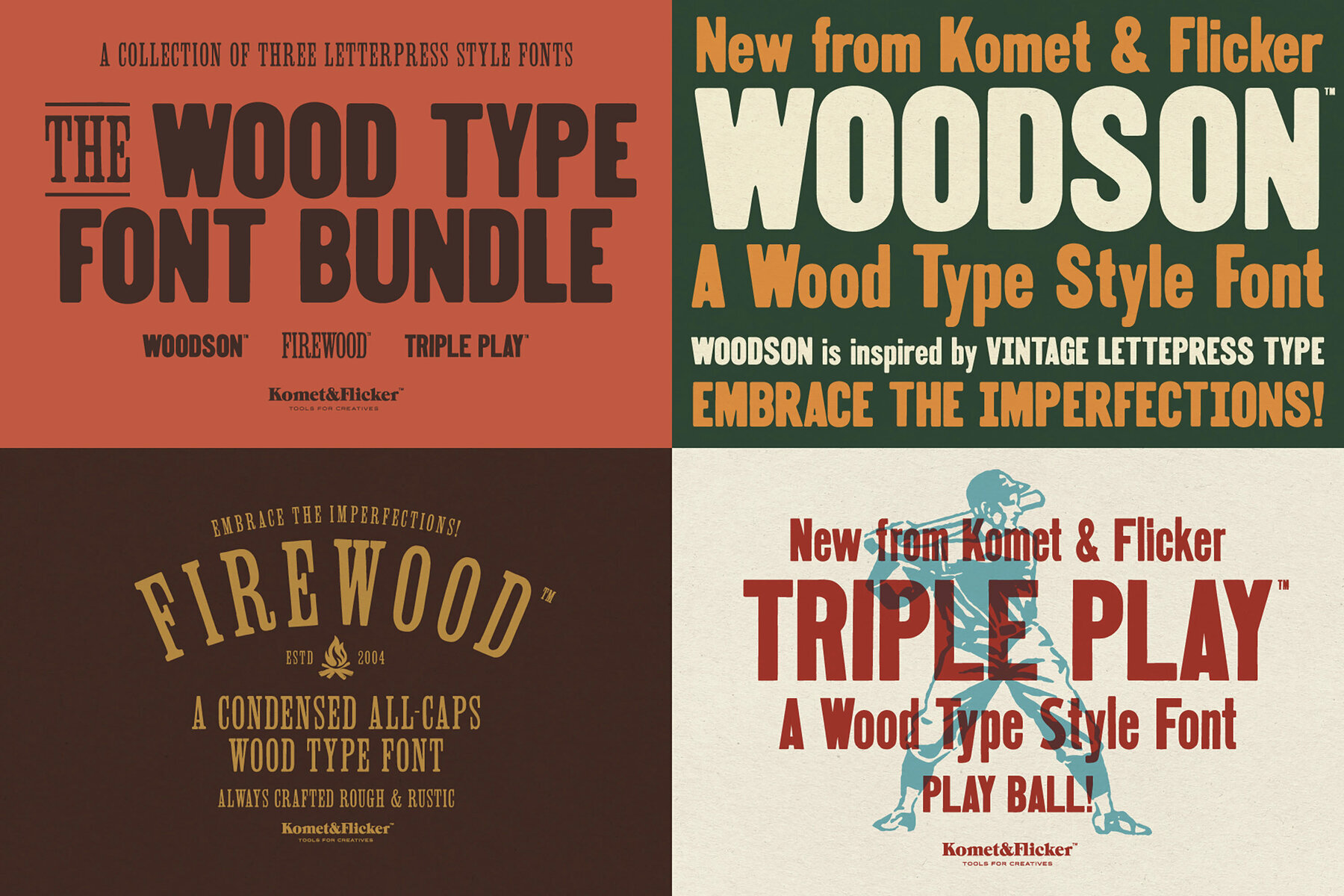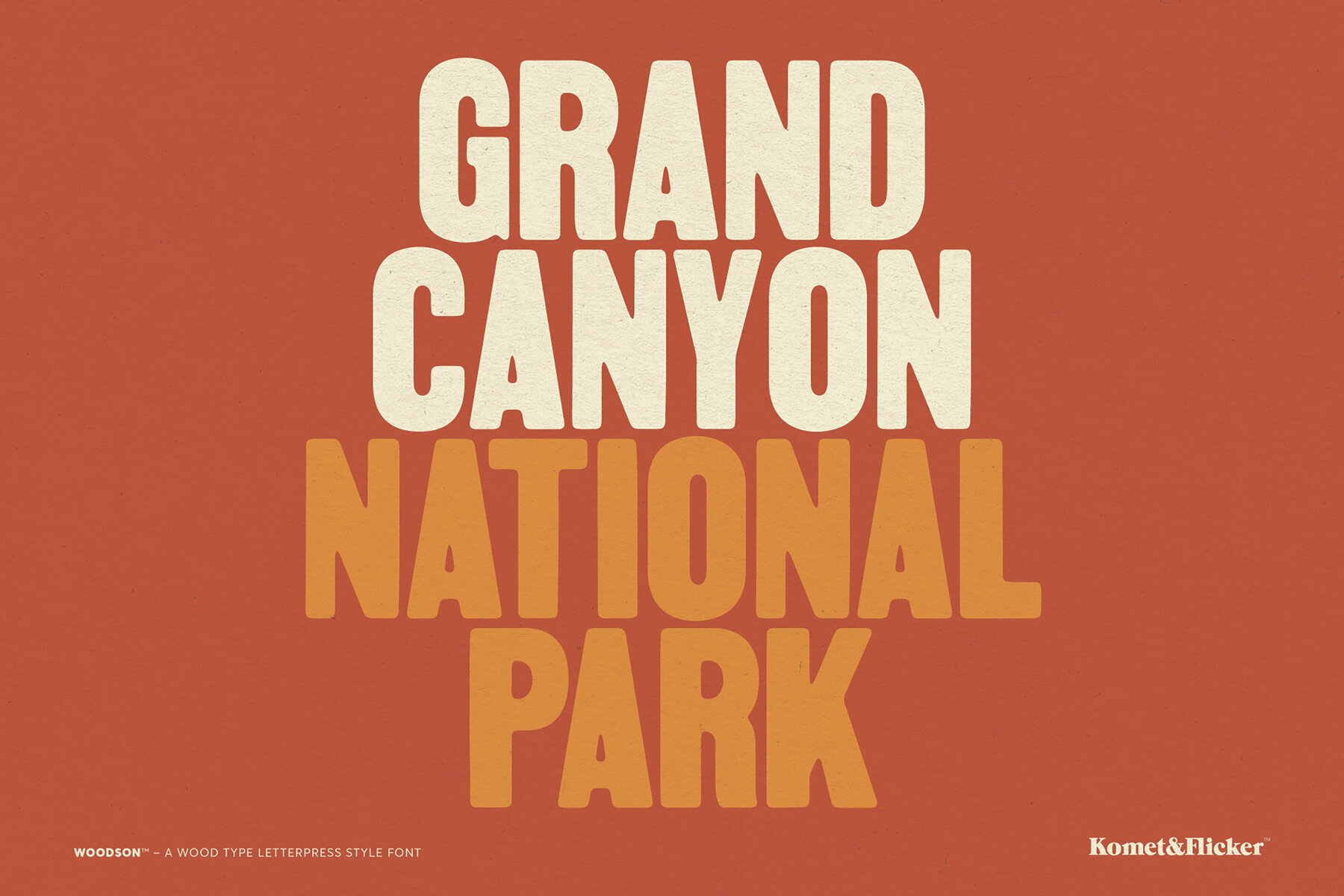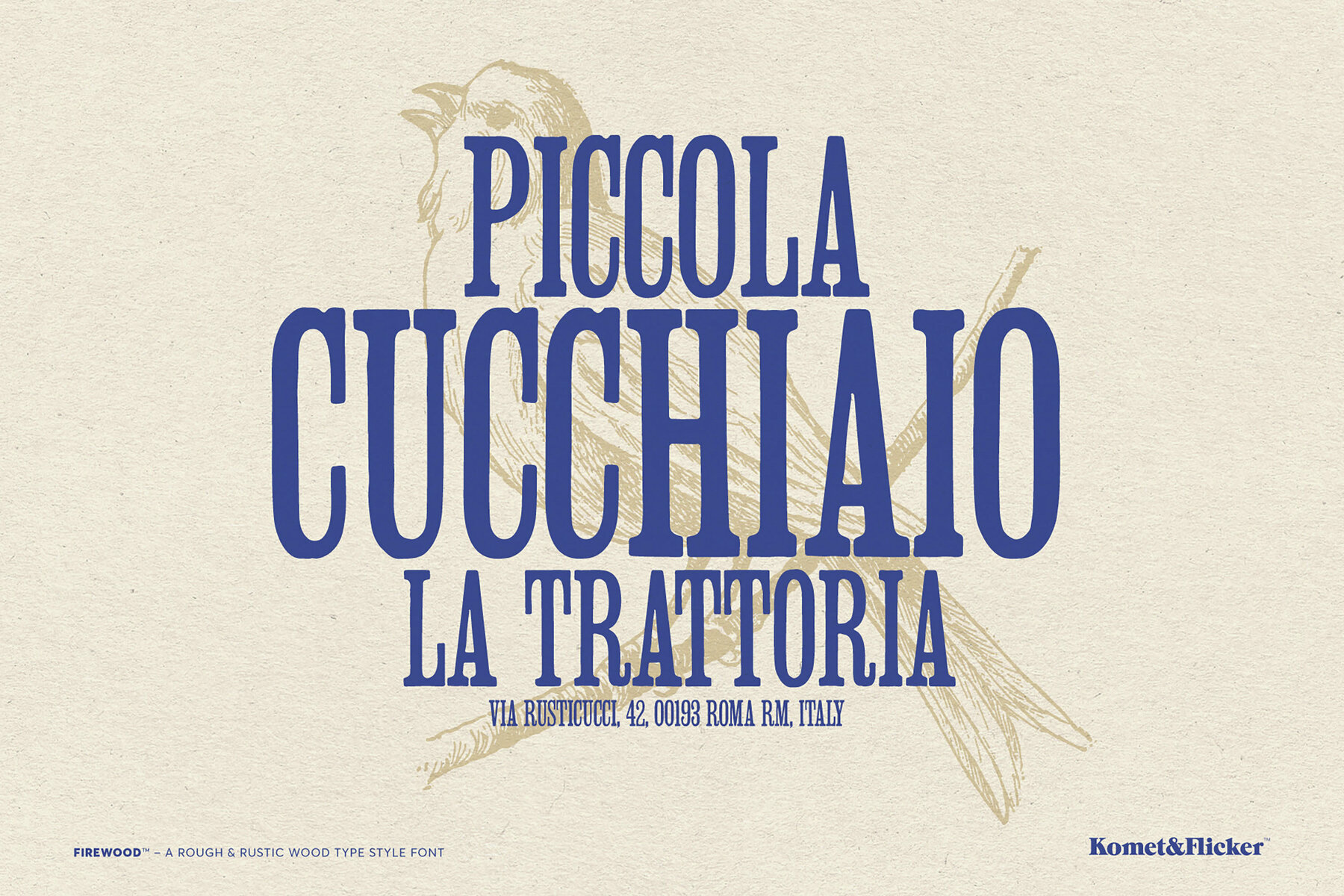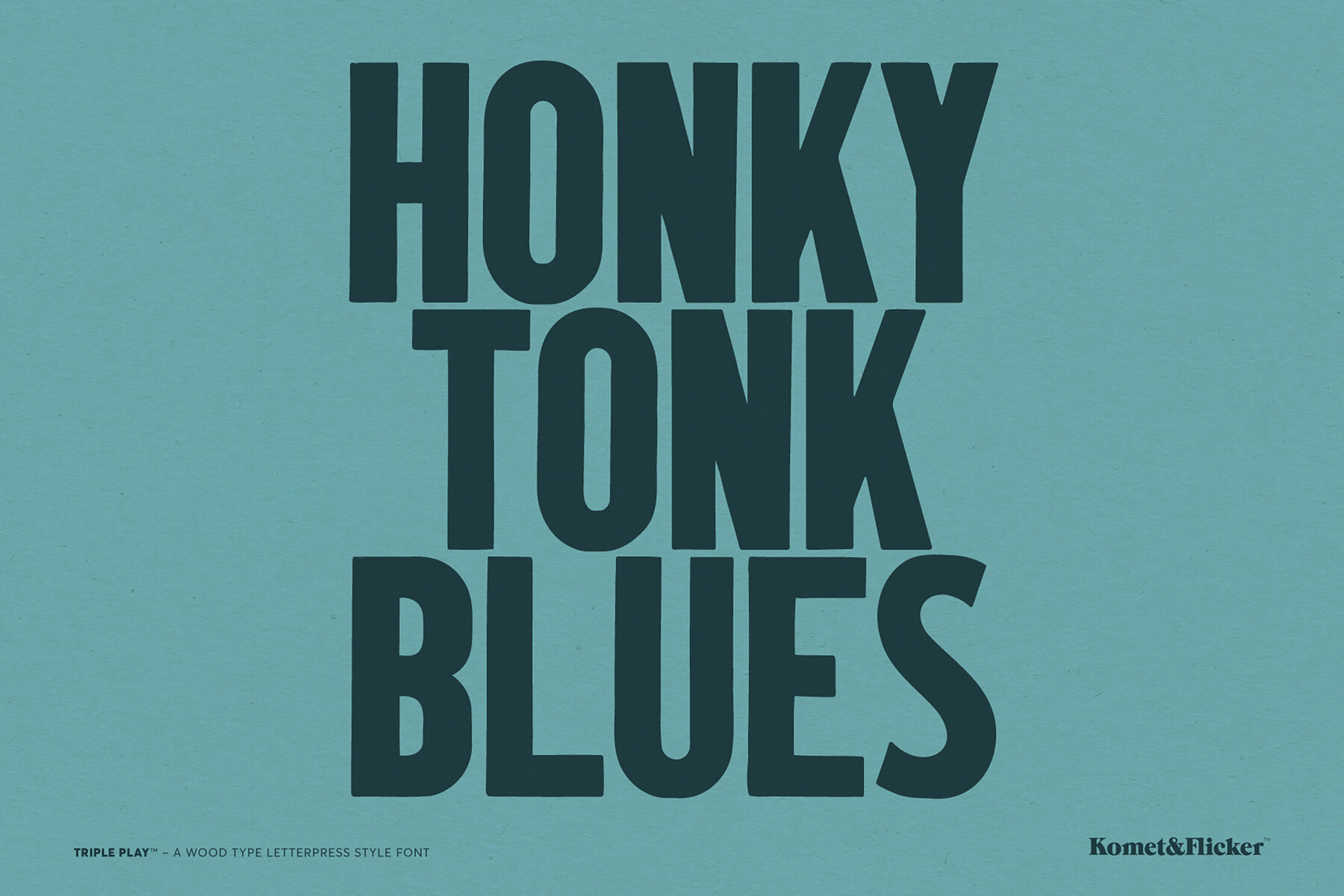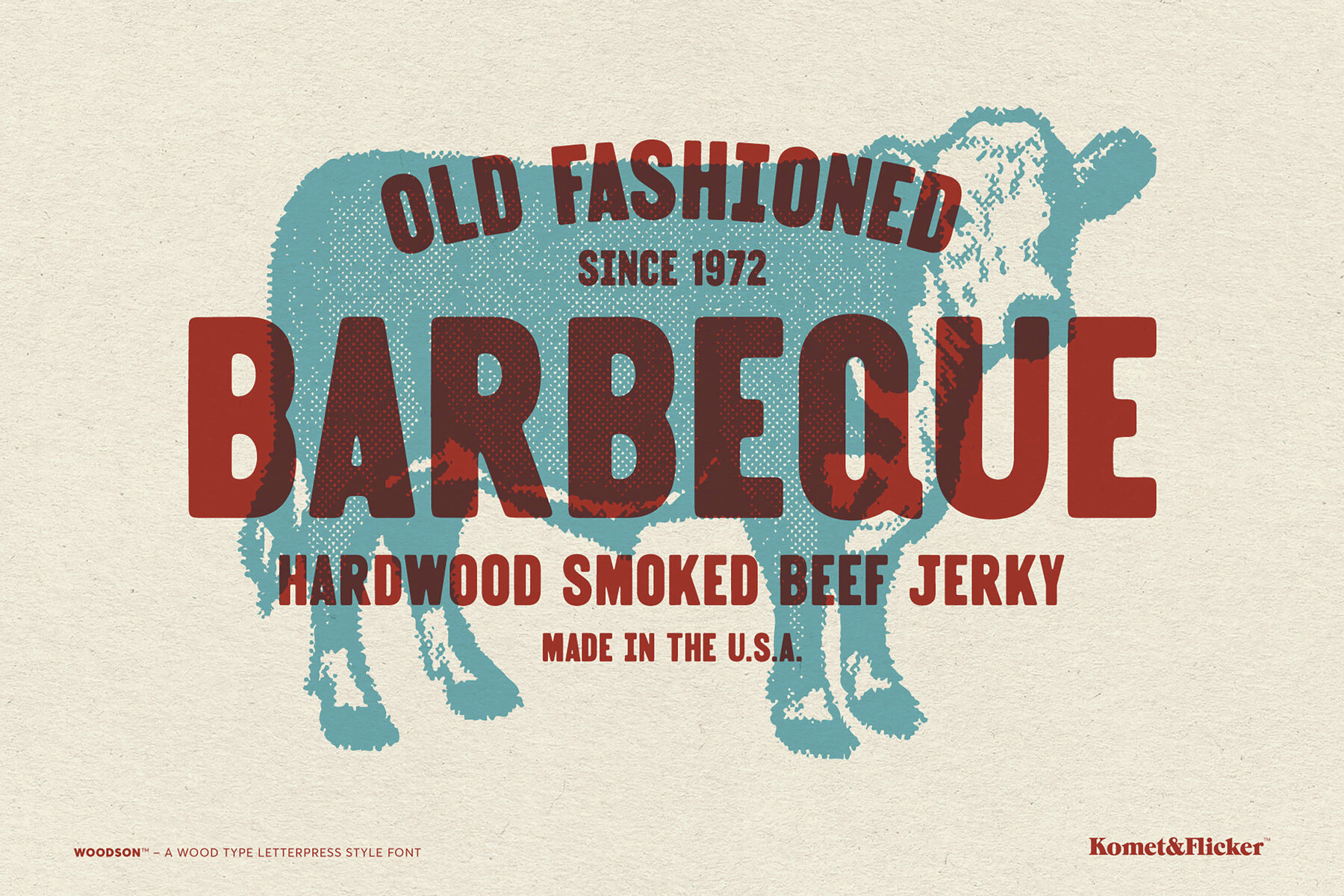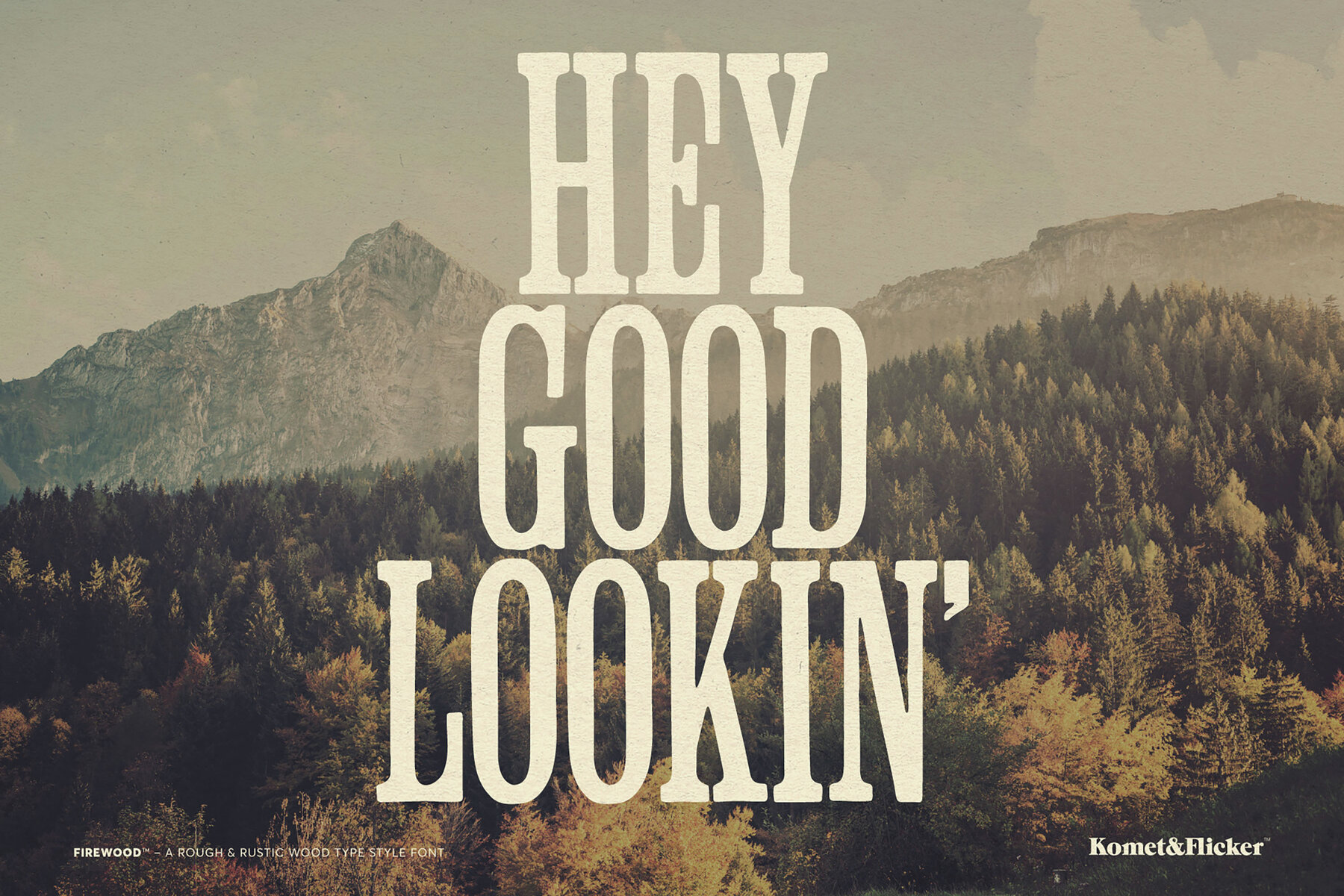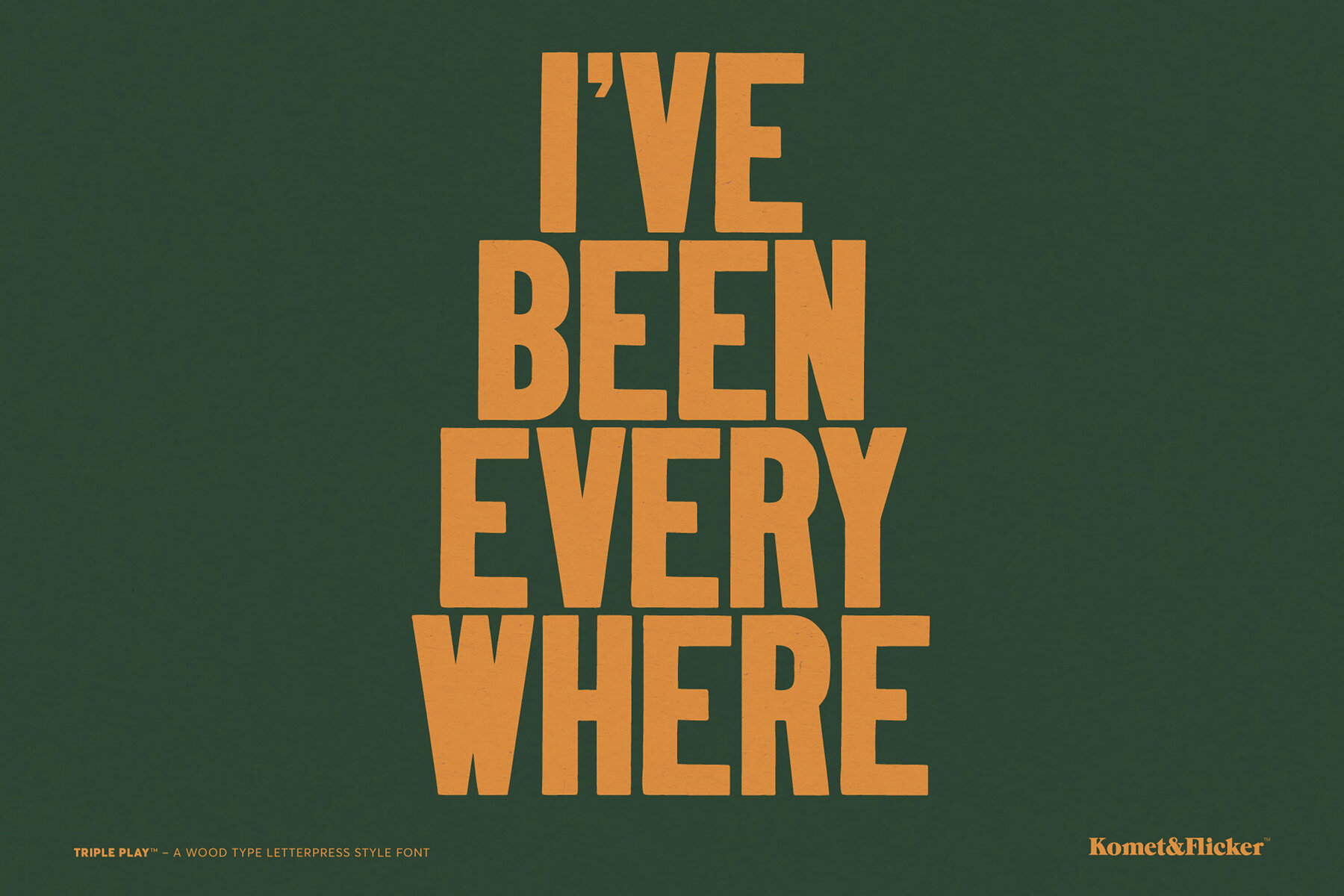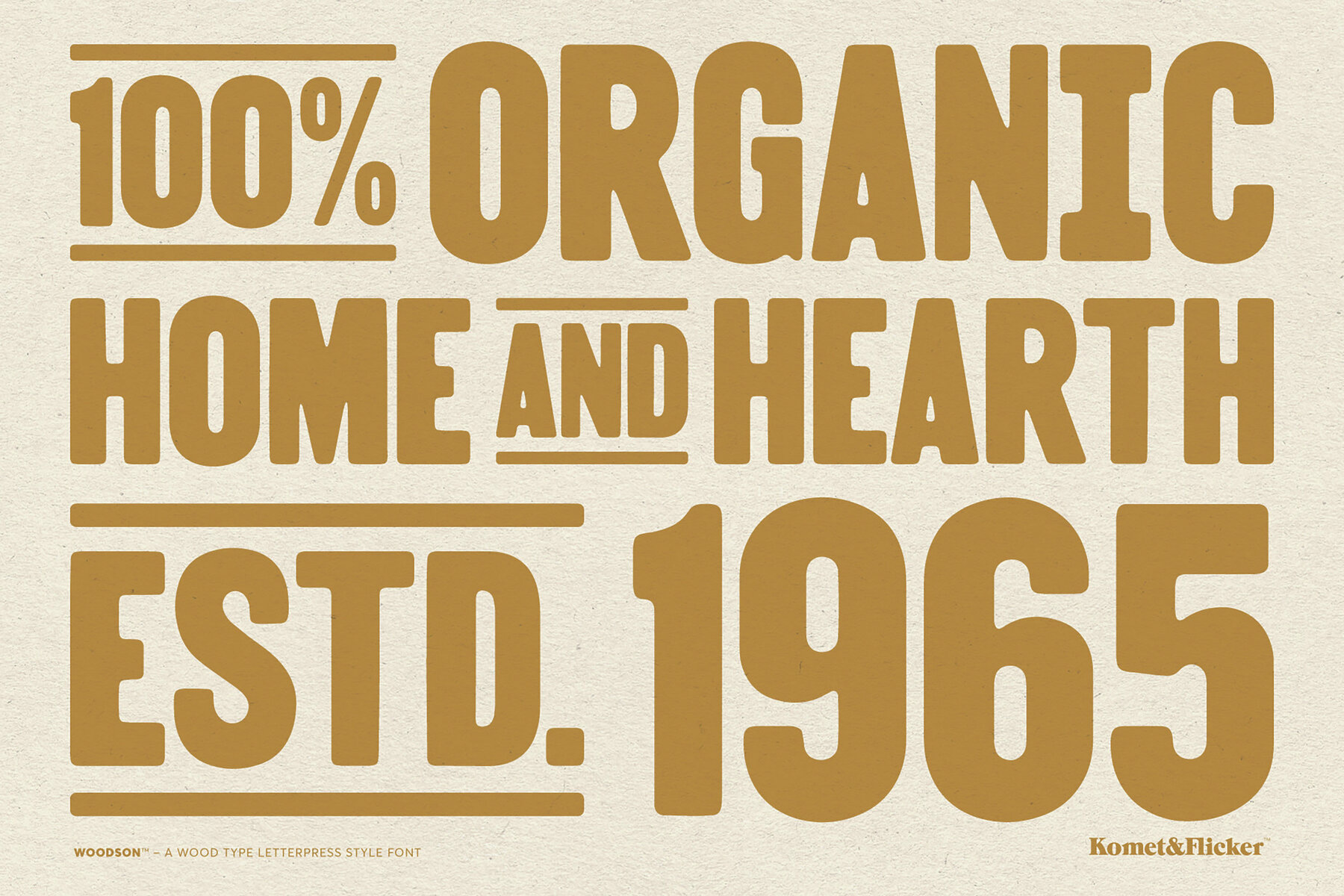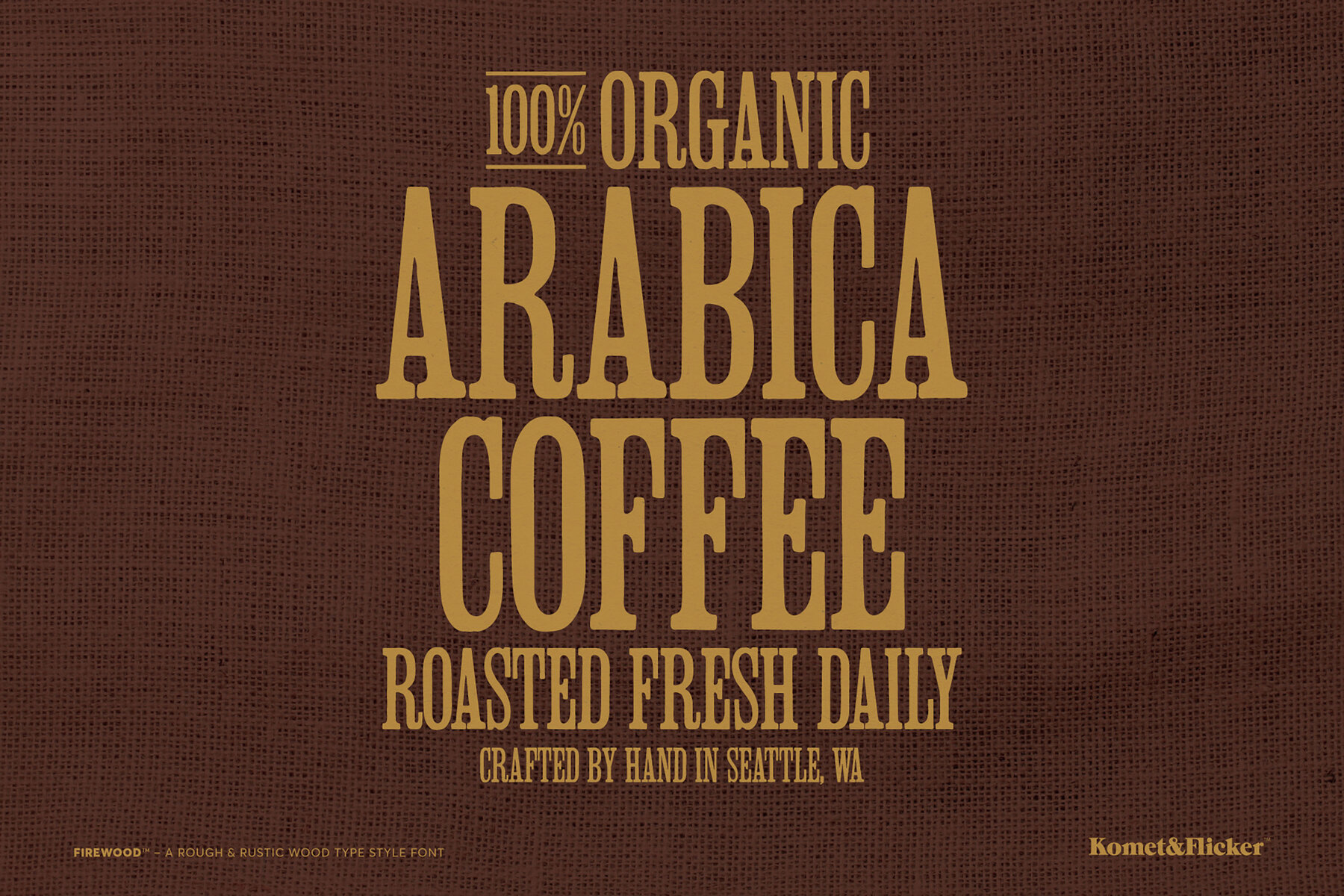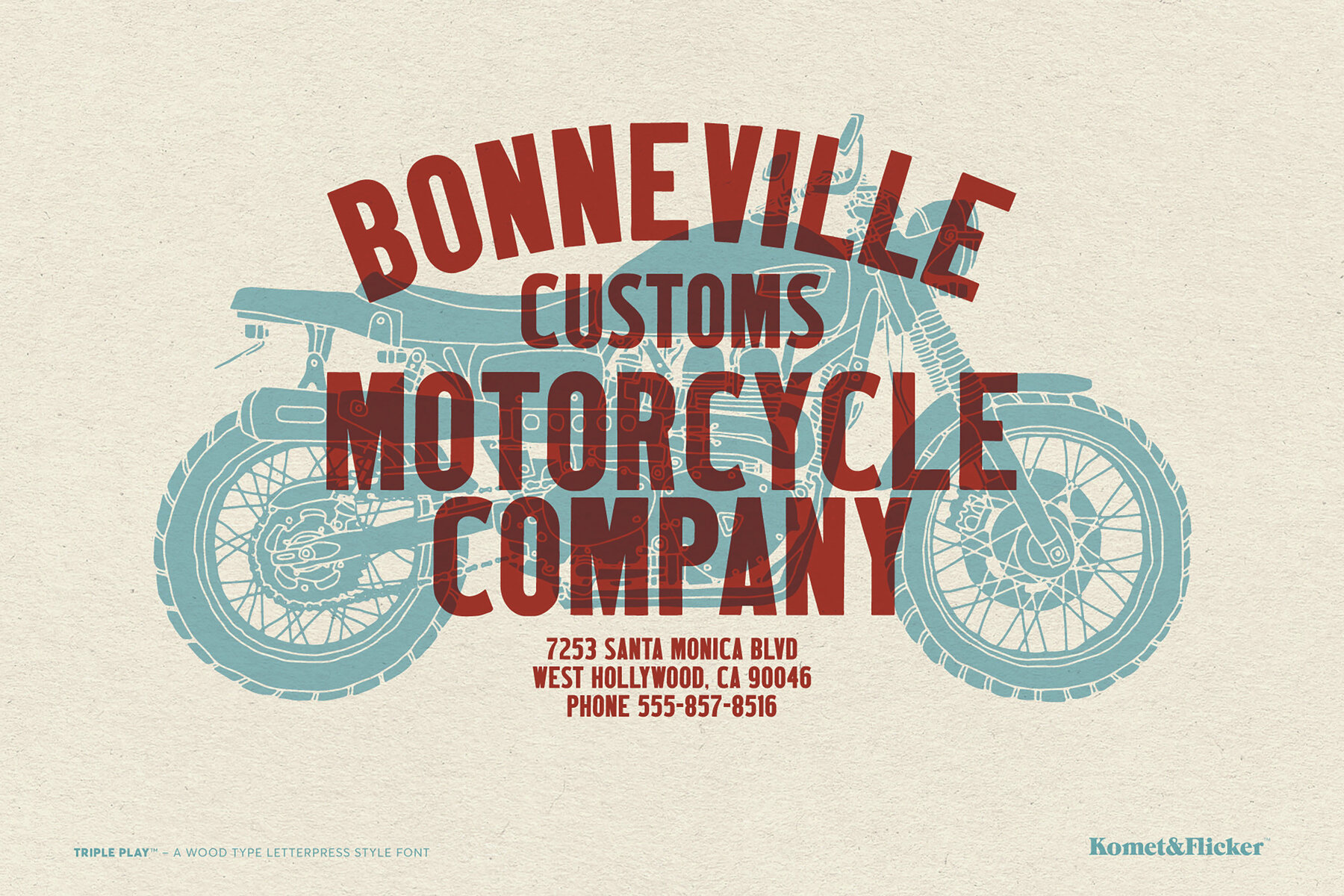
The Wood Type Bundle Font
Add a distinct touch of heritage to your projects with The Wood Type Font Bundle. This carefully assembled collection includes three classic fonts – Woodson, Firewood, and Triple Play – each drawing inspiration from traditional wood type and letterpress designs. The bundle embodies a vintage and rustic charm that infuses authenticity into any creative work.
Whether you’re crafting logos, packaging, or marketing materials, these rustic fonts provide a versatile palette to mix and match, allowing you to create a variety of vintage styles that resonate with warmth and character.
THIS THREE FONT BUNDLE INCLUDES
• Woodson Soft Bold
• Firewood Condensed
• Triple Play Bold